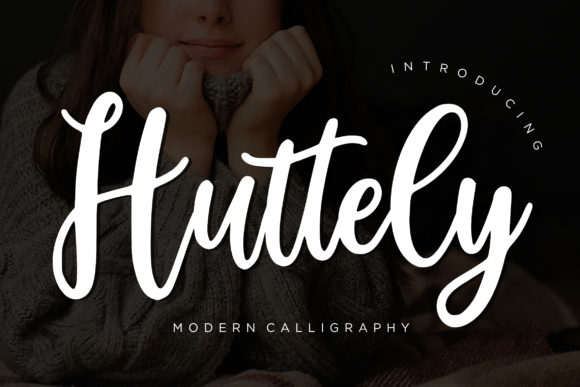
Immerse yourself in Huttely Font's exquisite calligraphy. Each letter, meticulously crafted, will dance across your designs like a symphony of elegance. Its graceful lines and sweeping curves will transform your digital creations into captivating works of art.
Script fonts have a unique charm that sets them apart, and Huttely Font embodies this charm with perfection. Each glyph tells a story, creating an emotional connection between the reader and your captivating designs.
Huttely Font brings forth a fresh perspective, breathing life into your websites, social media posts, and digital content. It's the perfect font for those seeking to make an impactful statement.
Unleash your imagination and explore Huttely Font's boundless possibilities. Experiment with its distinctive characteristics to create designs that are both visually appealing and emotionally resonant.
Huttely Font is more than just a font; it's an invitation to a creative journey. Let your imagination run wild as you discover the endless opportunities it offers.
Elevate your designs with Huttely Font today. Its timeless beauty and endless charm will leave a lasting impression on your audience.